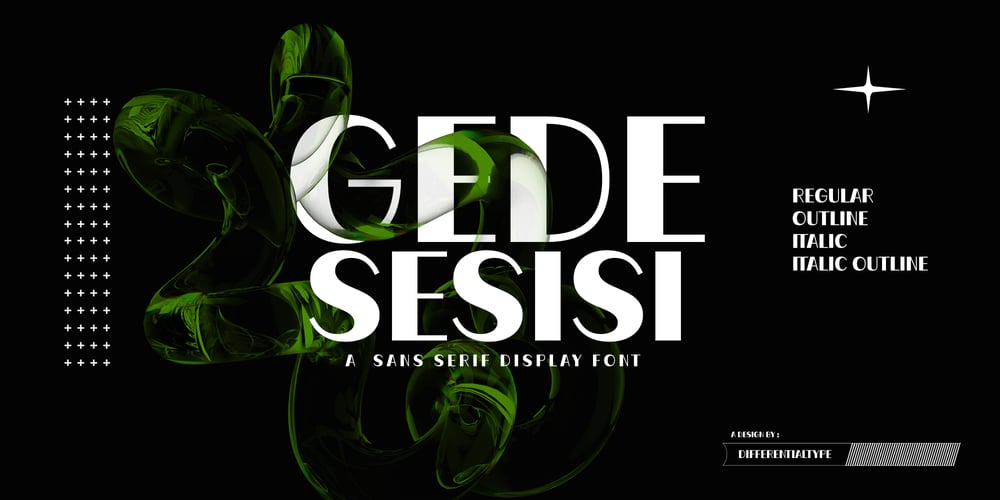
Gede Sesisi Font Family was designed by Sidik Sidik and published by Differentialtype. Gede Sesisi contains 4 styles and family package options. Immerse yourself in the distinctive elegance of Gede Sesisi, a sans serif display font teeming with striking contrast. Boasting four diverse styles – Regular, Outline, accompanied by a captivating Italic. Gede Sesisi makes an indelible mark wherever it graces. Ideal for crafting engaging logos, eye-catching headlines, or to bring a sense of dynamism to any brand’s projects, Gede Sesisi is all about making a bold statement. Incorporate Gede Sesisi to your font collection, unleashing the potential it offers to elevate your designs to new heights of distinction.